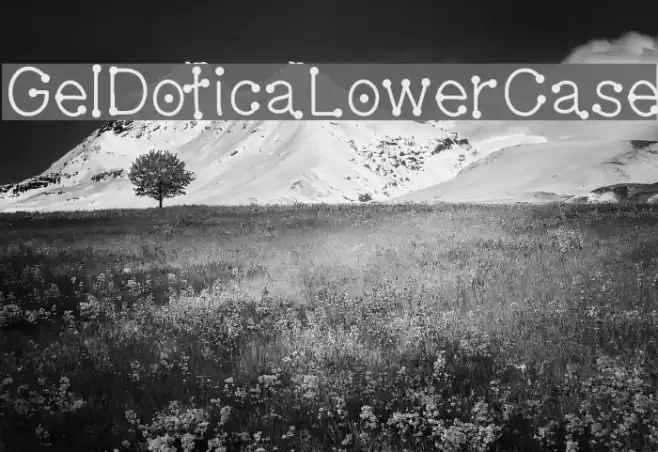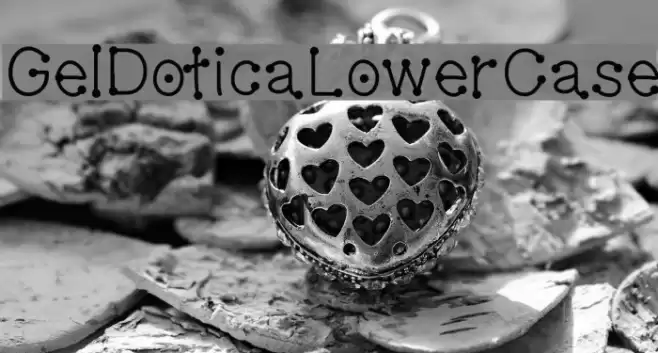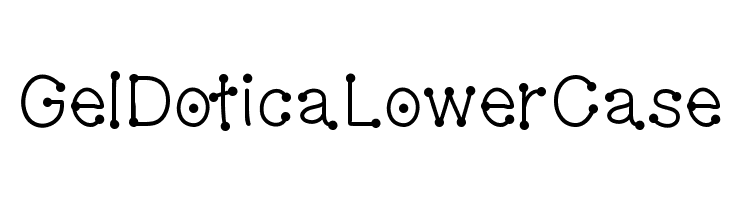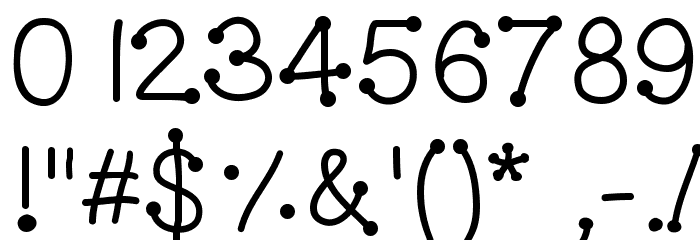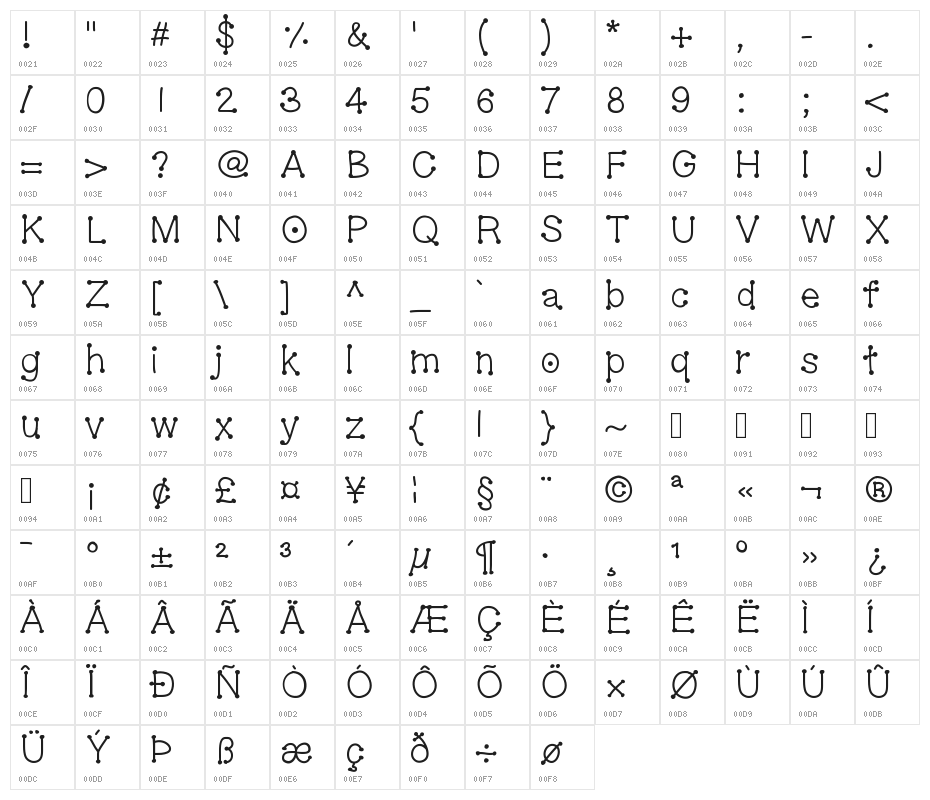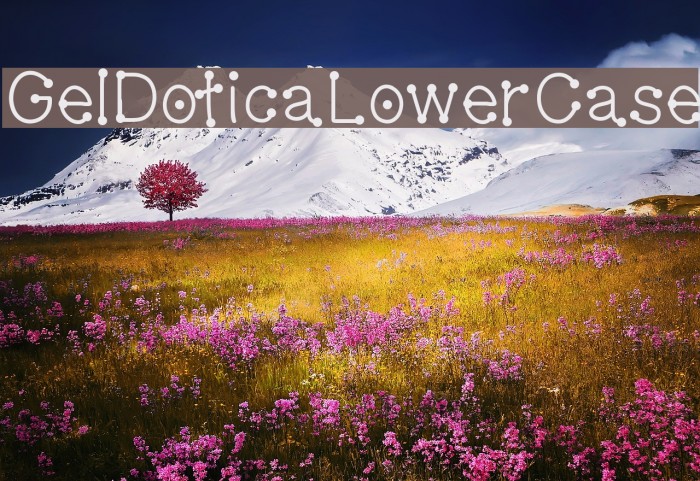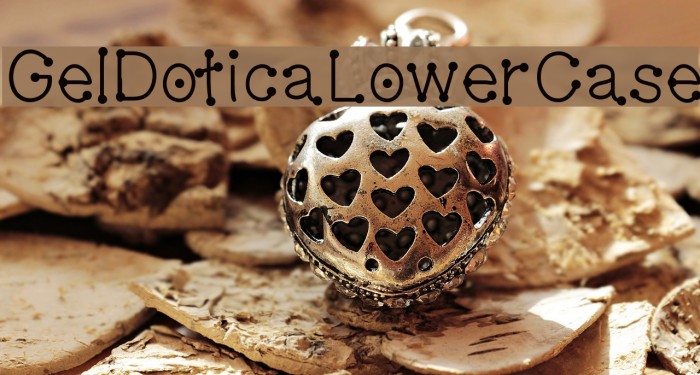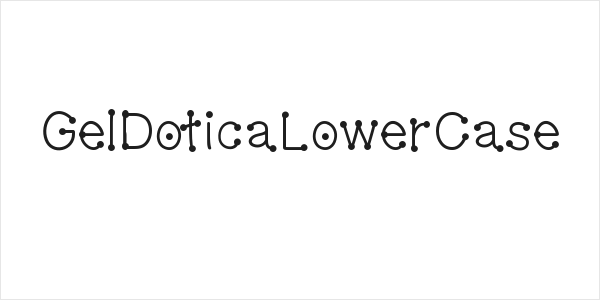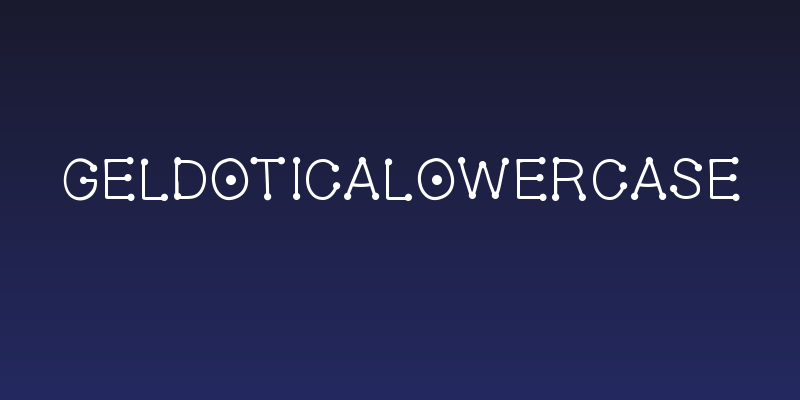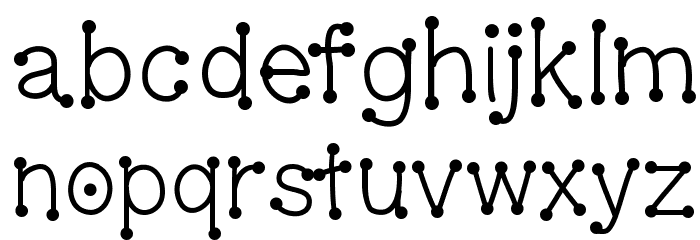
GelDoticaLowerCase Font
GelDoticaLowerCase Description
This font features a playful and unique design with rounded terminals that resemble small dots, giving it a whimsical and friendly appearance. The characters are evenly spaced with a consistent stroke width, contributing to a clean and modern look. The uppercase and lowercase letters maintain a uniform style, while the numerals and special characters integrate seamlessly with the overall design. Its distinct style makes it suitable for creative and informal applications, where a touch of fun and approachability is desired.
A playful font with rounded terminals and a modern, friendly appearance from Decorative fonts.
- Proposed Projects: Ideal for children's books, playful branding, greeting cards, and creative posters.
- Overall Style: Modern, Playful